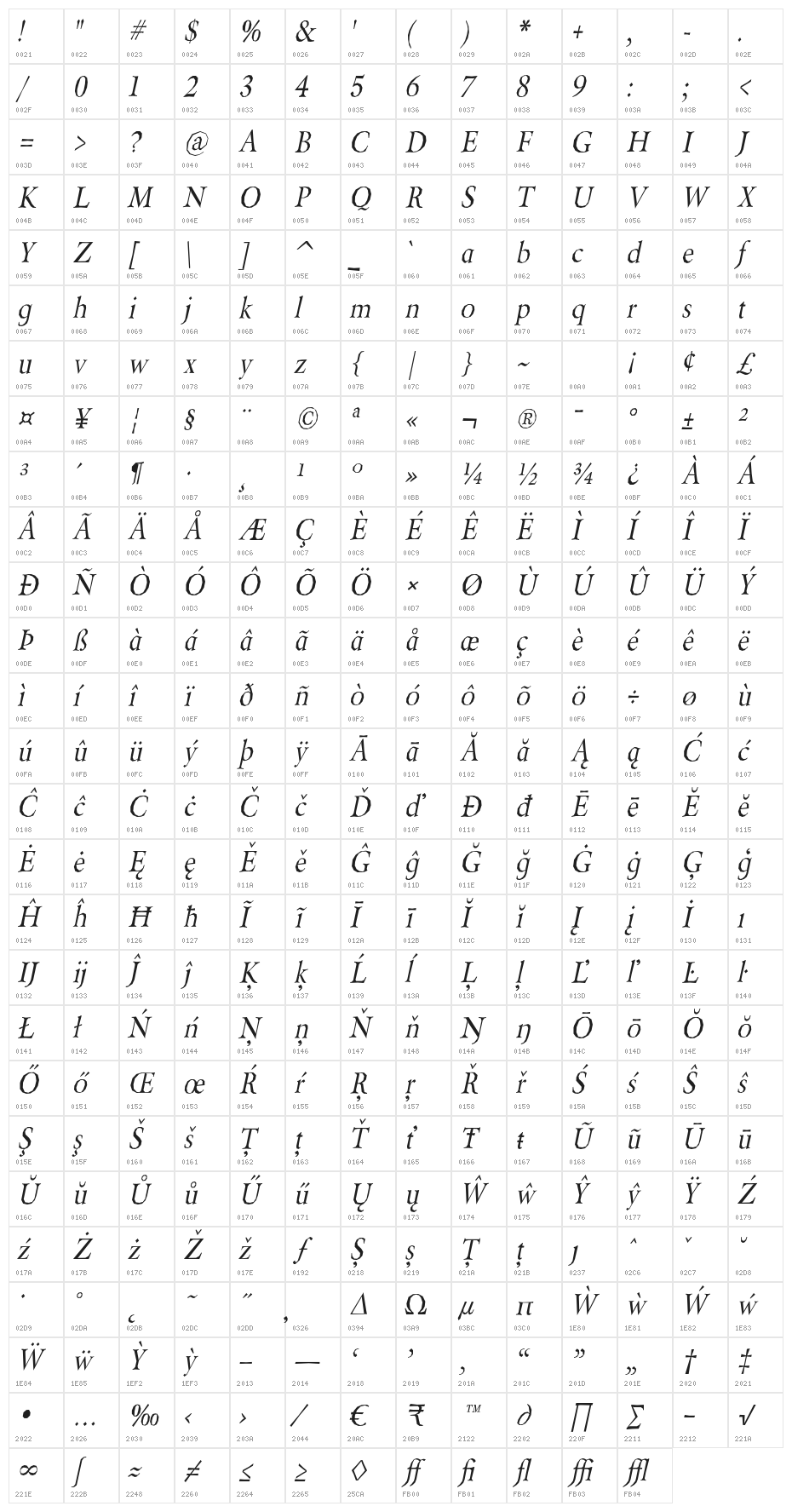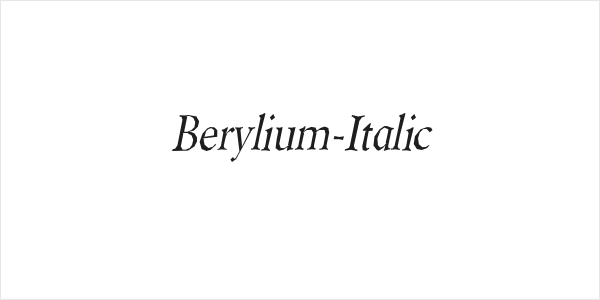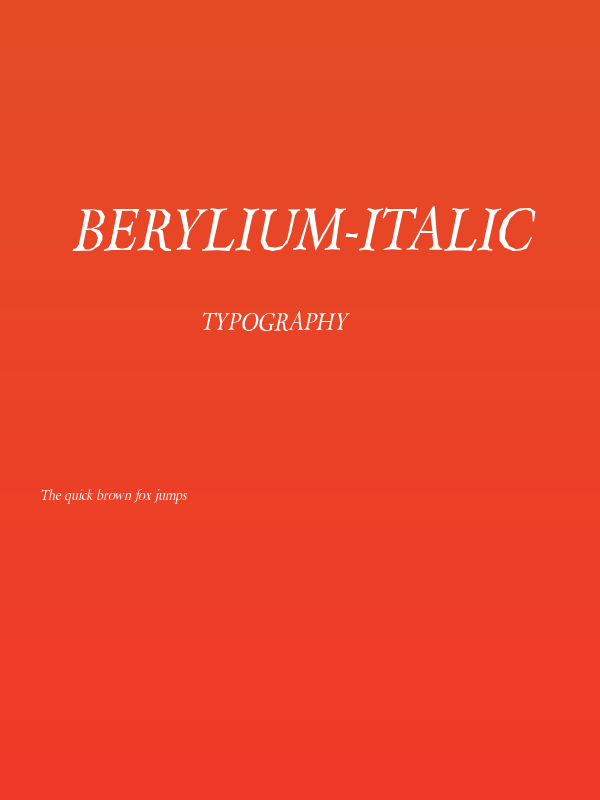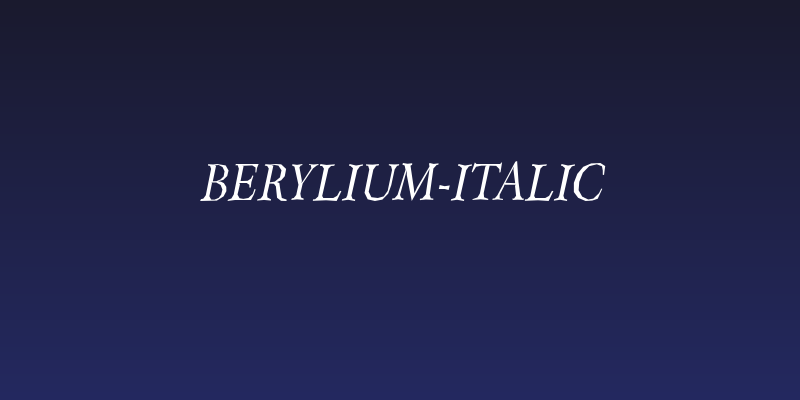
Berylium-Italic Font
Berylium-Italic Description
This font features a classic italic style with elegant, flowing lines and a slight slant to the right. The characters have a distinct serif design, adding a touch of sophistication and formality. The uppercase letters are bold and prominent, while the lowercase letters maintain a graceful and fluid appearance. The numerals are well-proportioned, and the special characters are designed to complement the overall aesthetic. The font's contrast in stroke thickness is medium, providing a balanced and readable appearance.
| Proposed Projects | Ideal for formal invitations, elegant branding, book covers, and editorial design. |